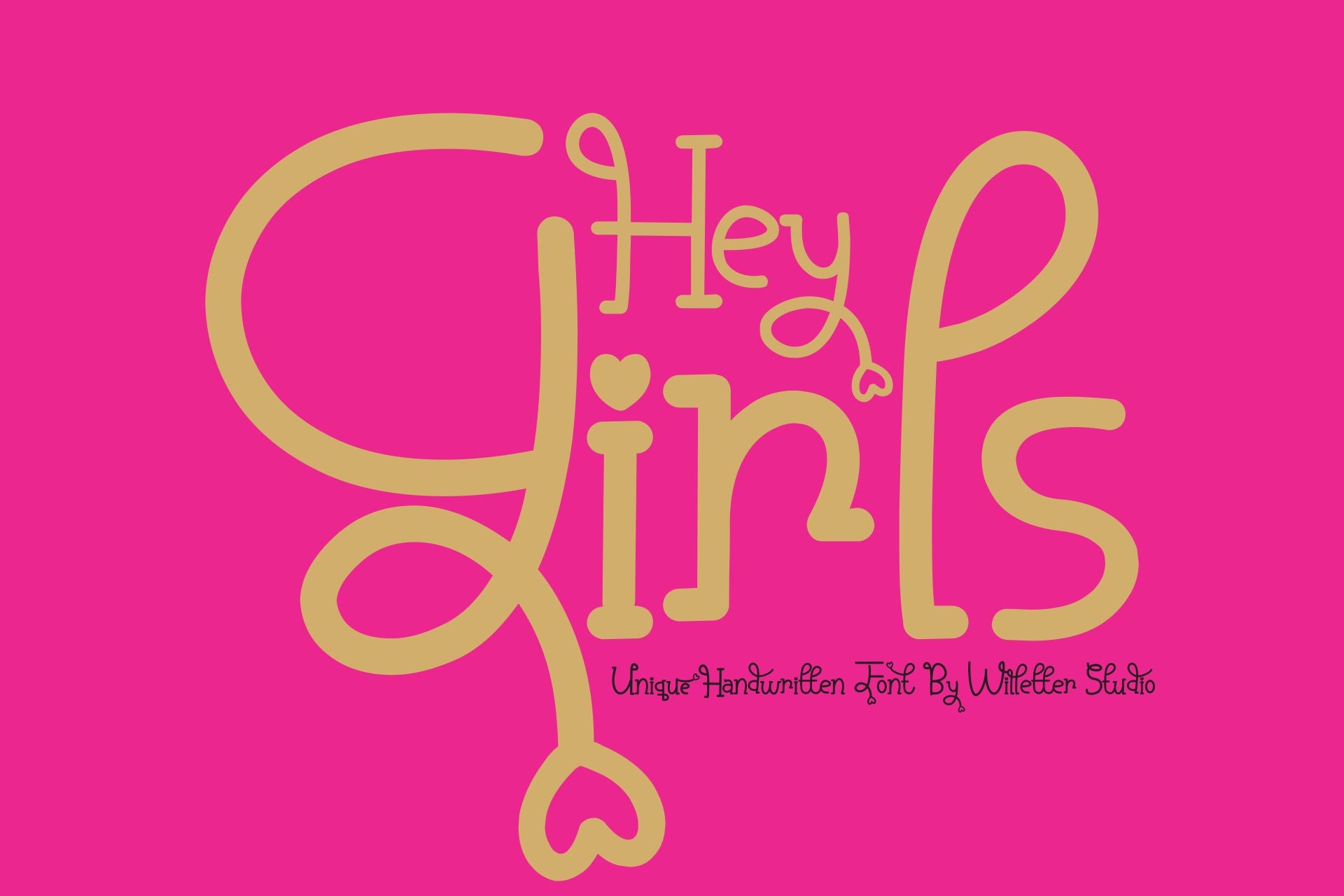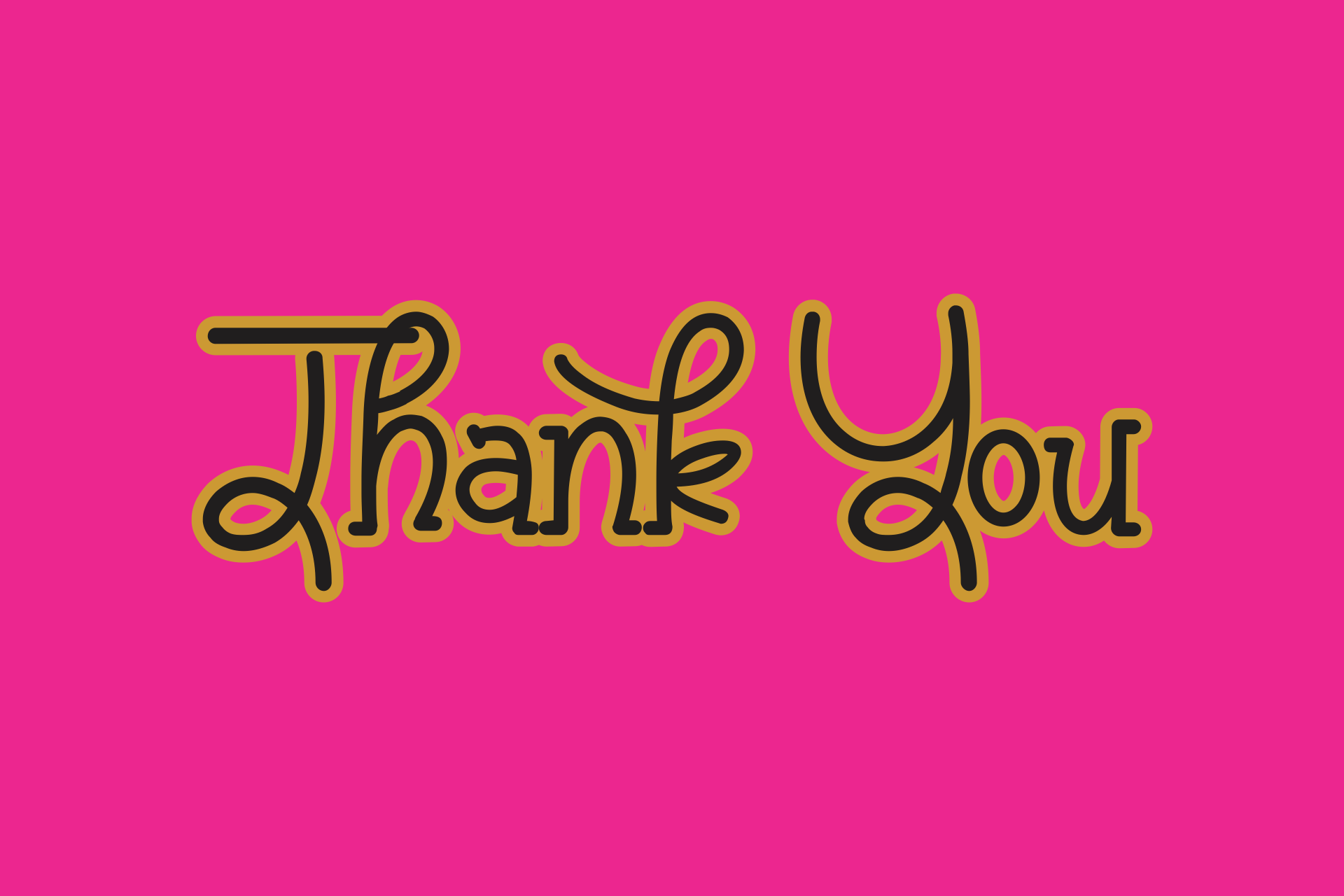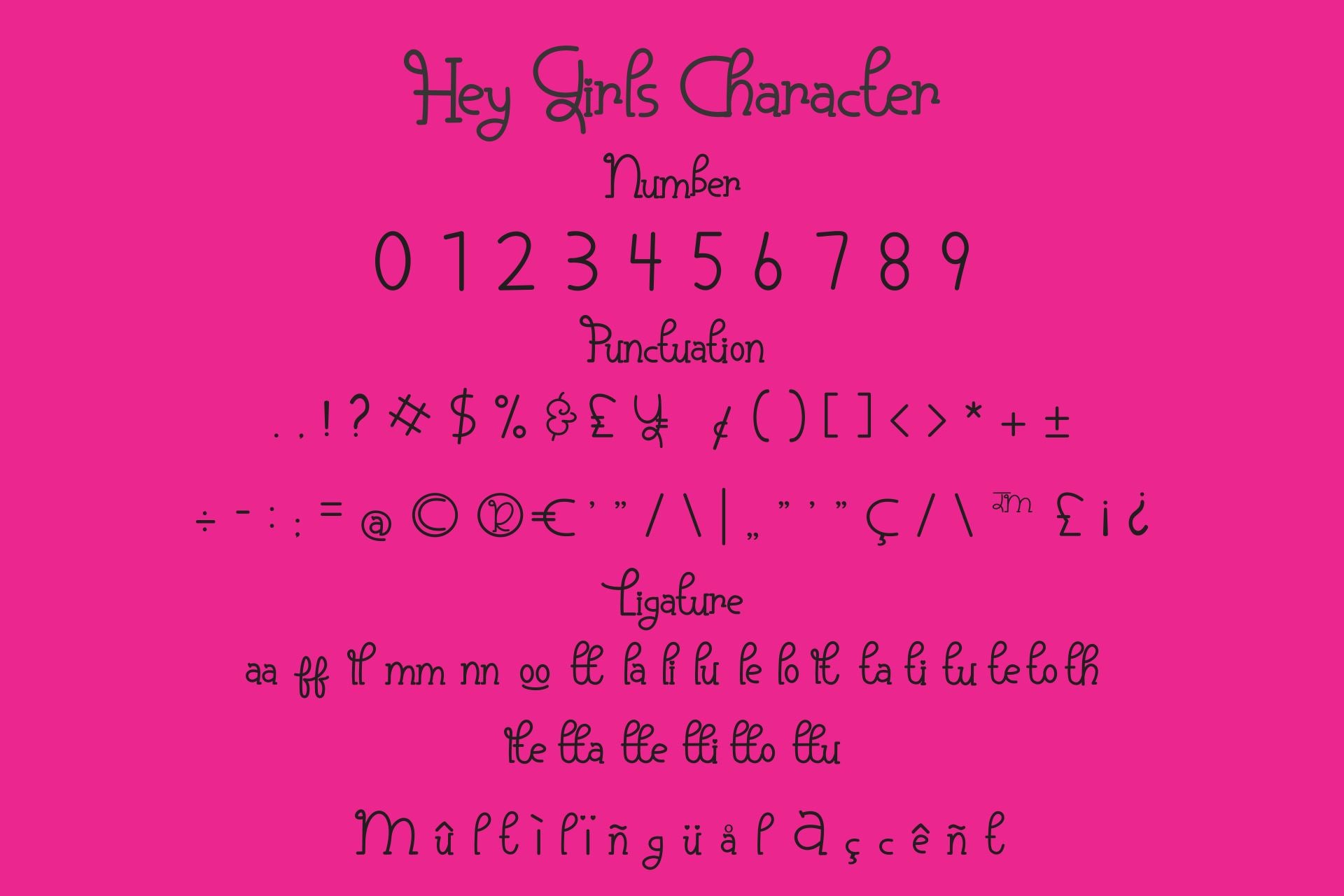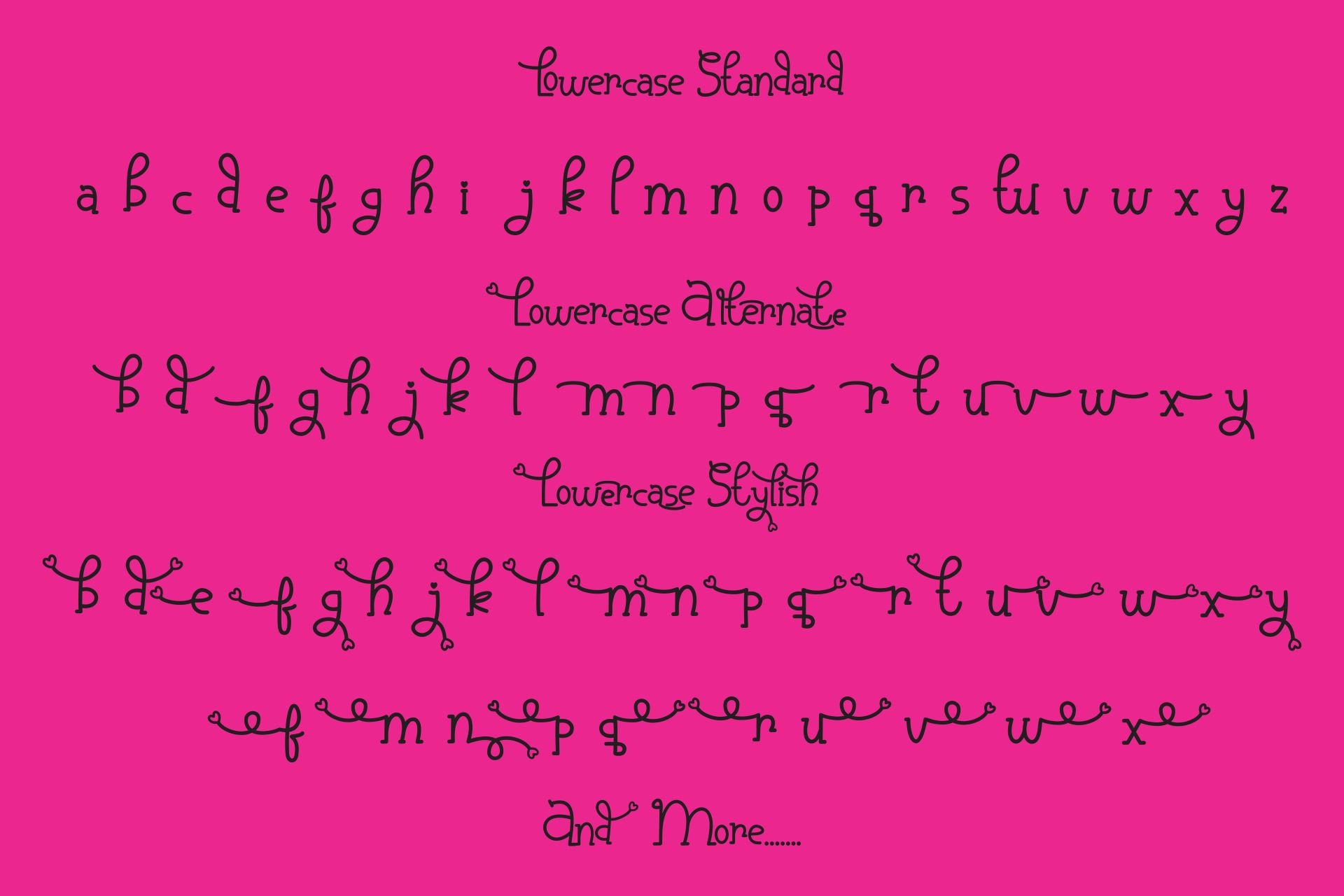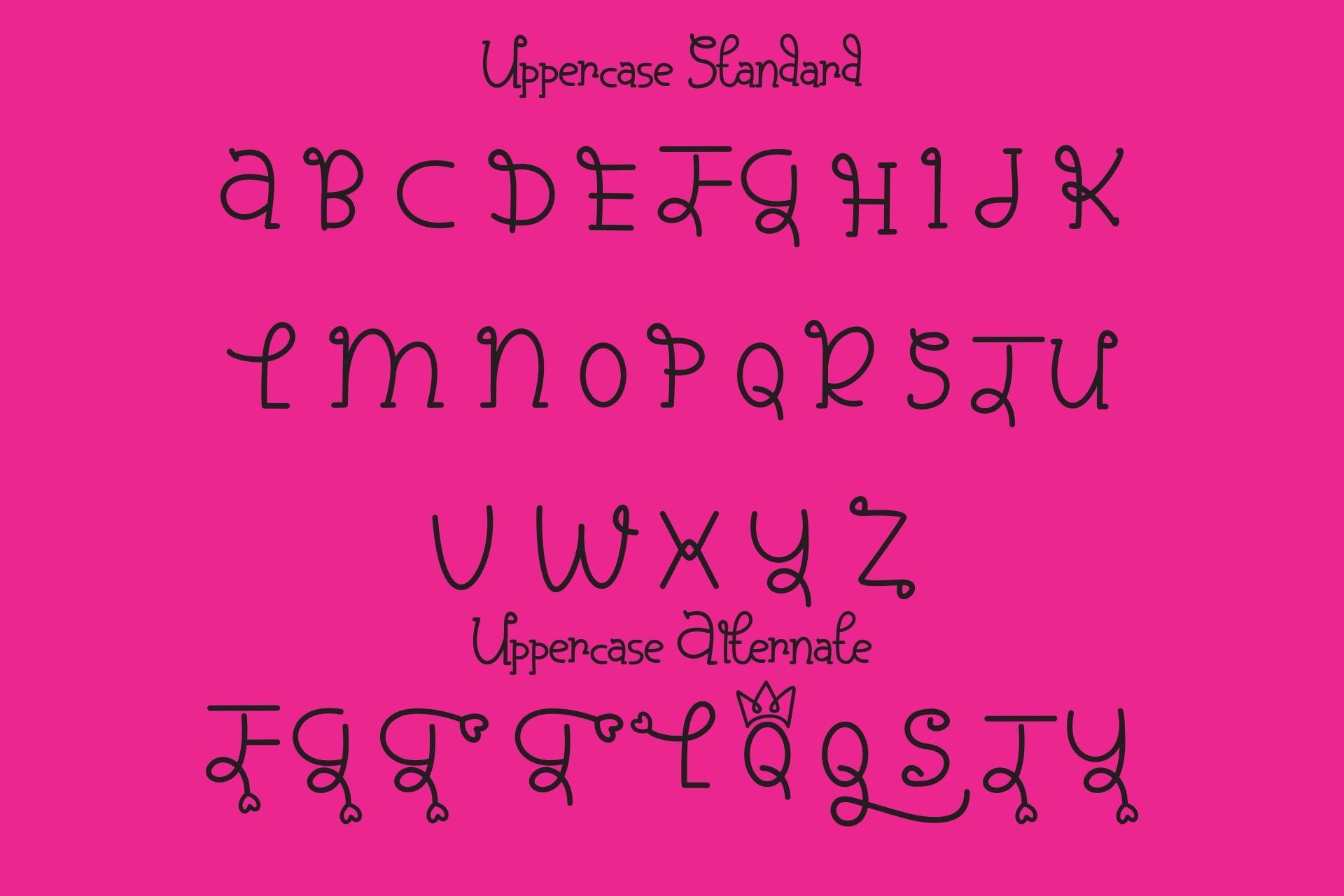
Hey Girls is a cute and casual handwritten font with an incredibly friendly feel. This font is the perfect fit for all of your logos, branding, social media, and crafty DIY projects.